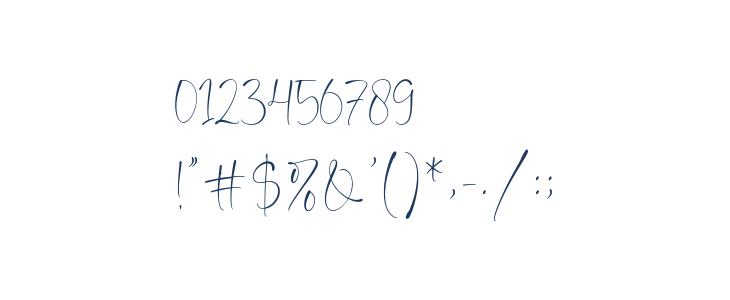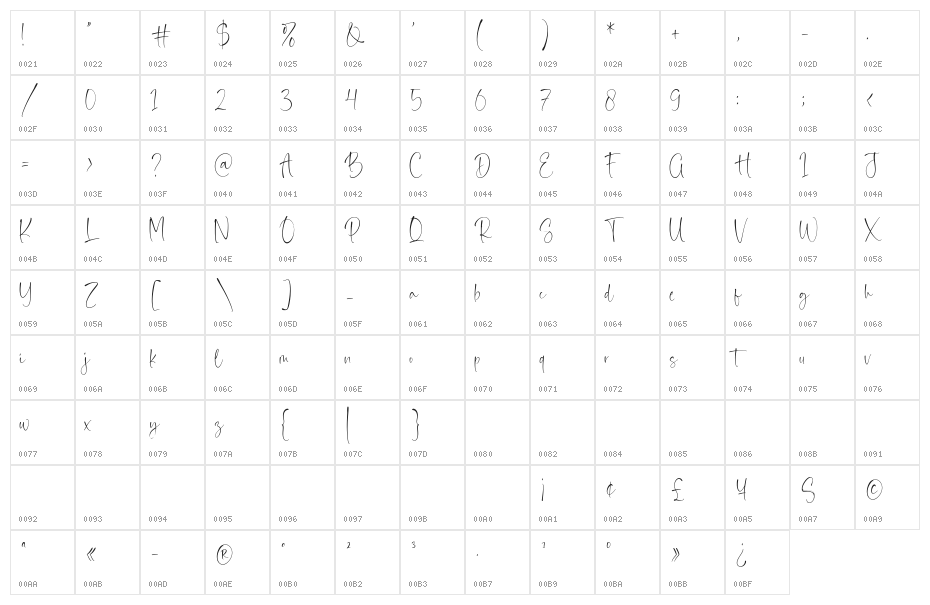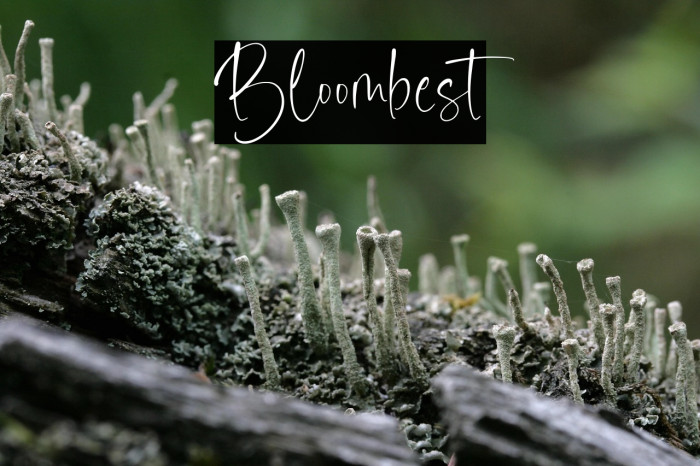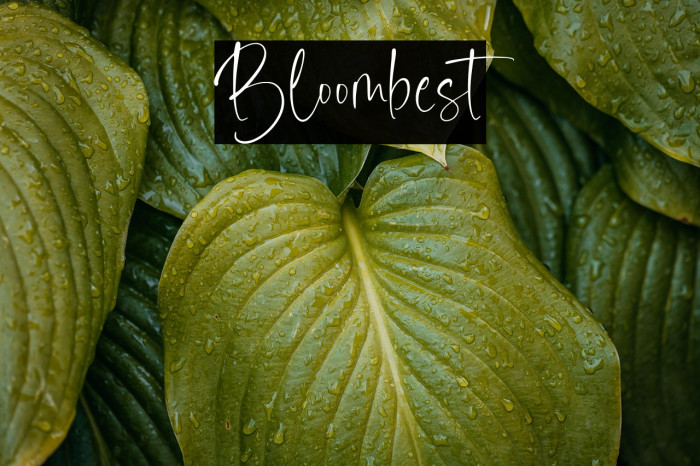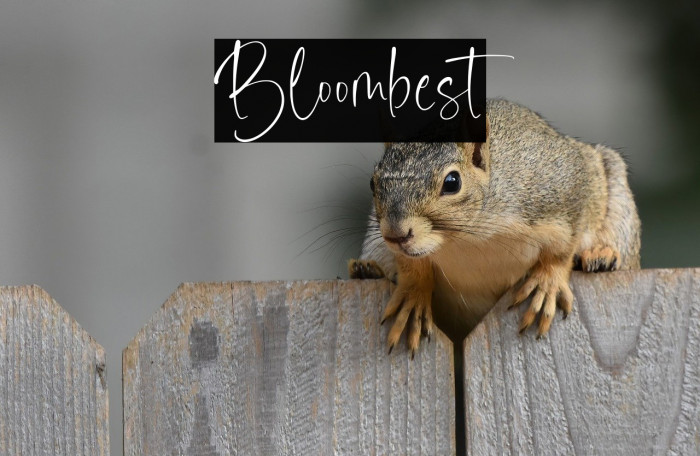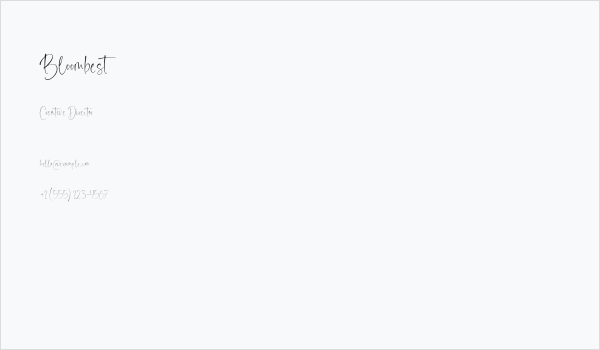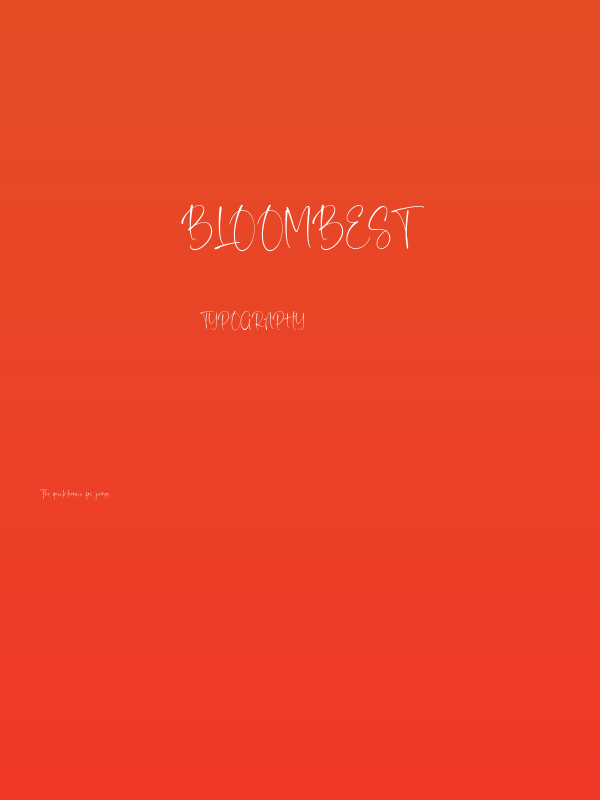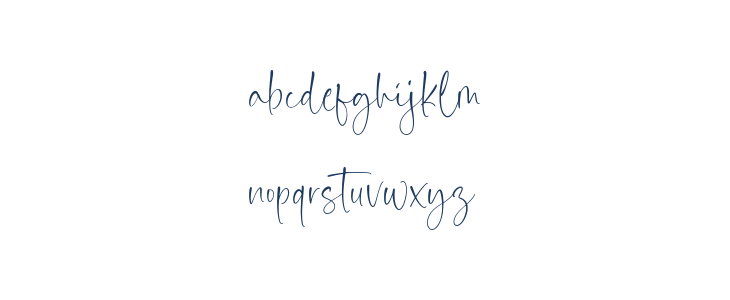
Bloombest Font
Bloombest Description
This font features a whimsical and elegant handwritten style, characterized by its flowing, cursive strokes and playful loops. The uppercase letters are tall and slender, with a slight slant that adds a dynamic feel. The lowercase letters maintain a consistent flow, with some characters extending below the baseline, enhancing its artistic flair. The numbers are clear and maintain the same playful style, ensuring readability while keeping the overall aesthetic. Special characters are creatively integrated, matching the font's unique style. This font is perfect for projects that require a personal touch, such as invitations, greeting cards, or branding materials.
Use CaseLogos, Invitations, Artistic projects
Proposed ProjectsIdeal for wedding invitations, greeting cards, personal branding, and artistic projects.